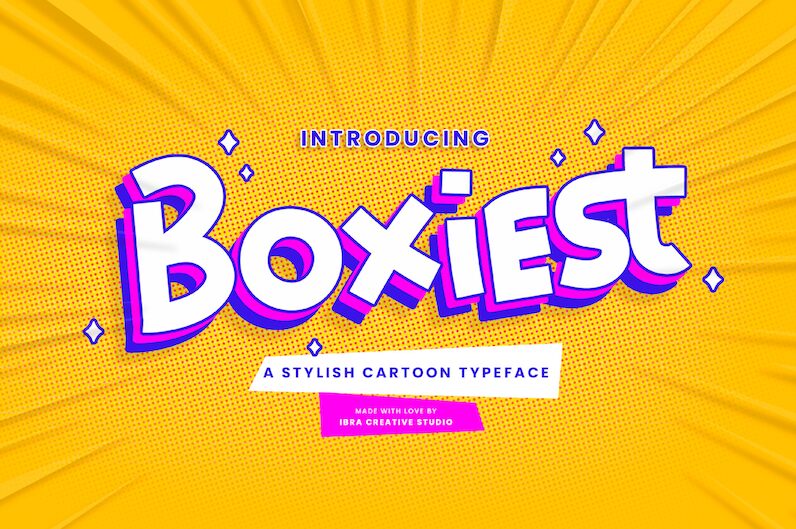
Boxiest Regular
Boxiest font by Ibra Creative Studio is a free cartoon display font with geometric influences and retro-inspired shapes. It features a casual vibe and lively presence necessary for cartoon-like appearances. The lightweight curly letters of Boxiest have rounded terminals that make the text appear more friendly.
Use Boxiest in posters, icons, titles, branding projects, ads, t-shirts designs, packaging; for display purposes only at all times. This typeface is not suitable in long texts due to its limited readability. However, its unique letters can be used to create logos and stylized messages rather than original texts.